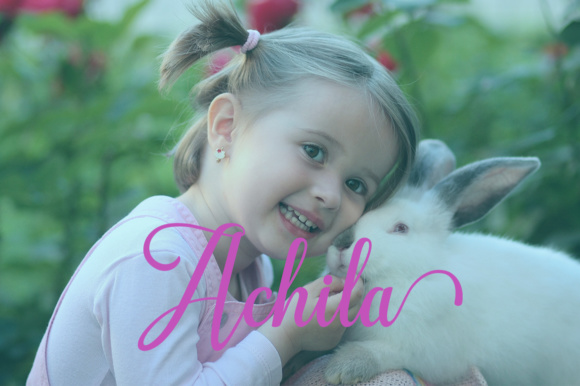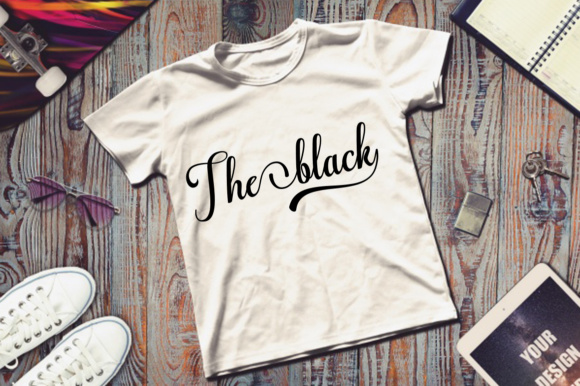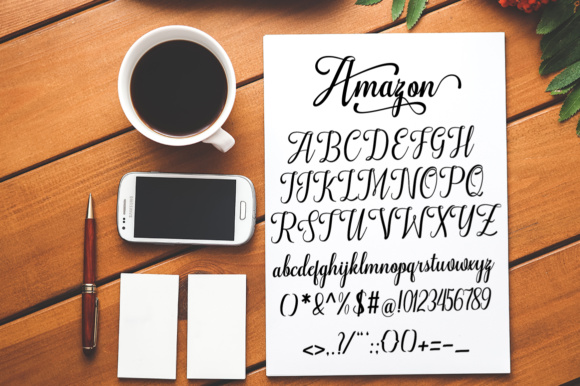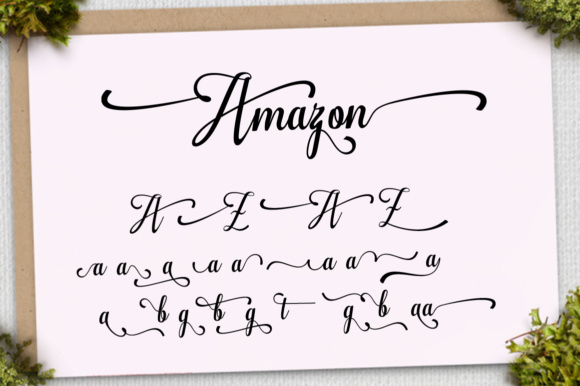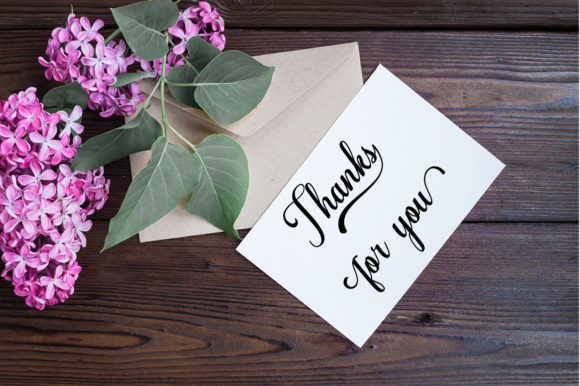
Amazon Font
About Amazon Font
Amazon is a fresh, modern, handmade calligraphy script. It has decorative characters and dancing lineage! You can use Amazon for greeting cards, branding material, business cards, quotes, posters, and more!